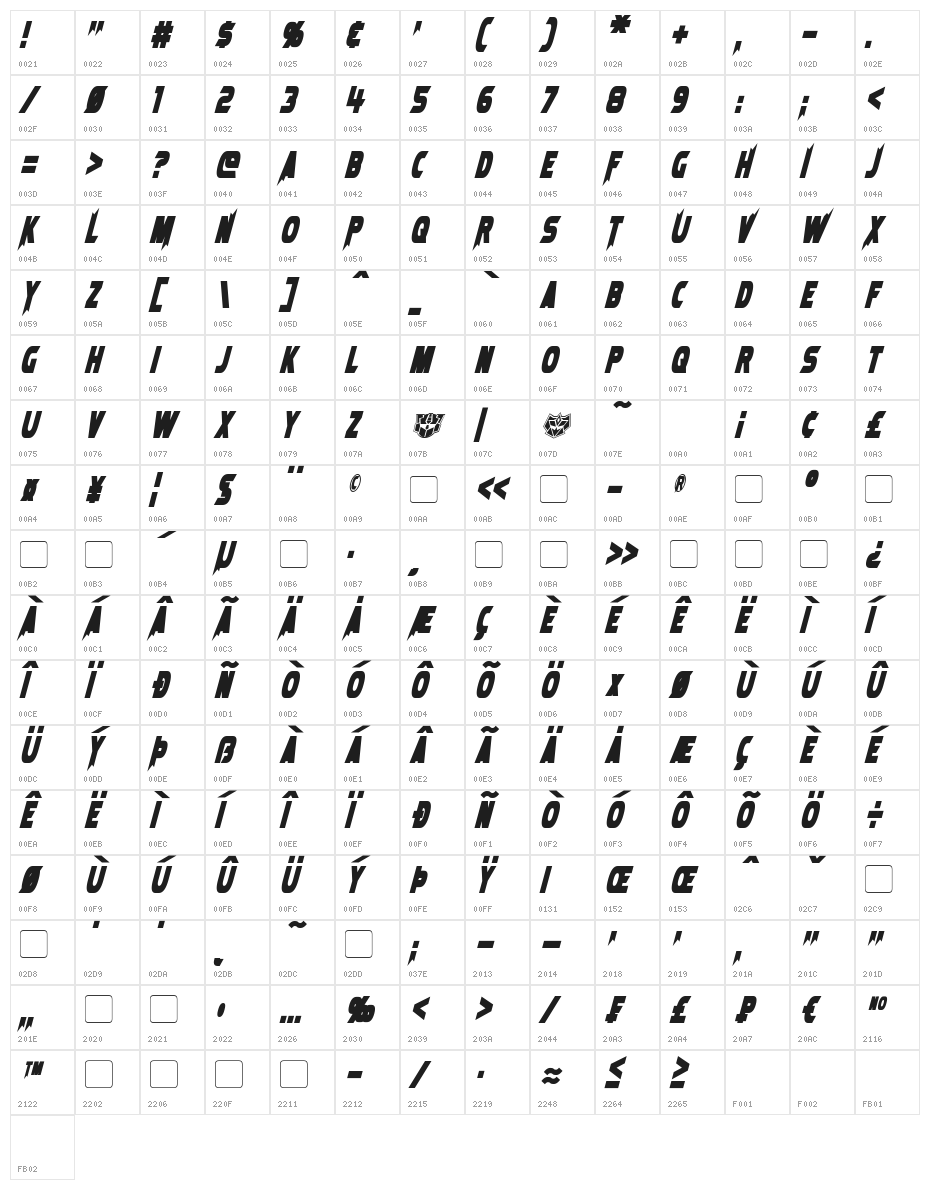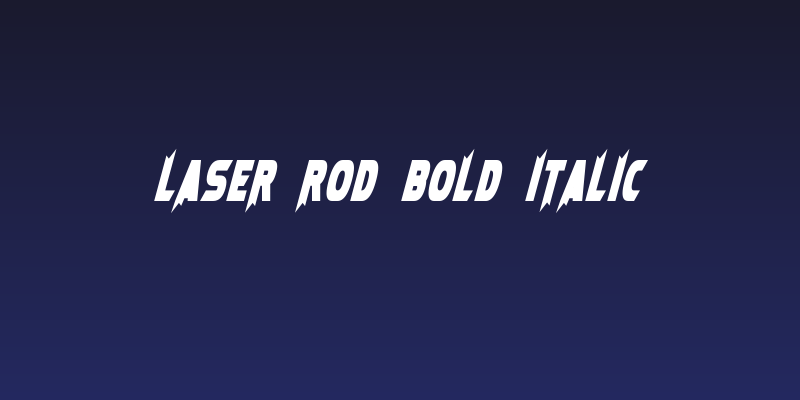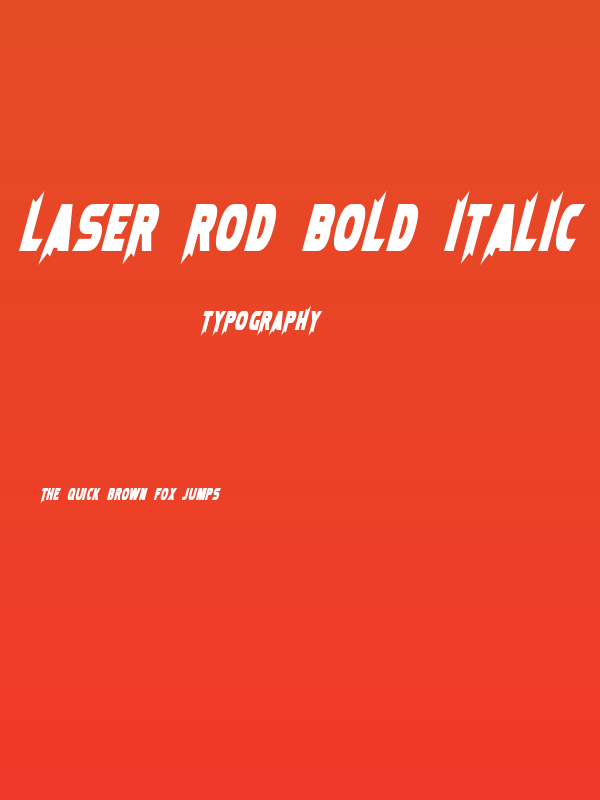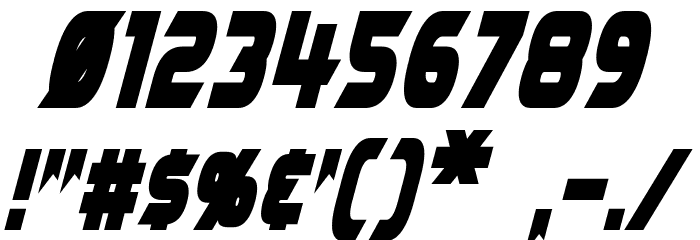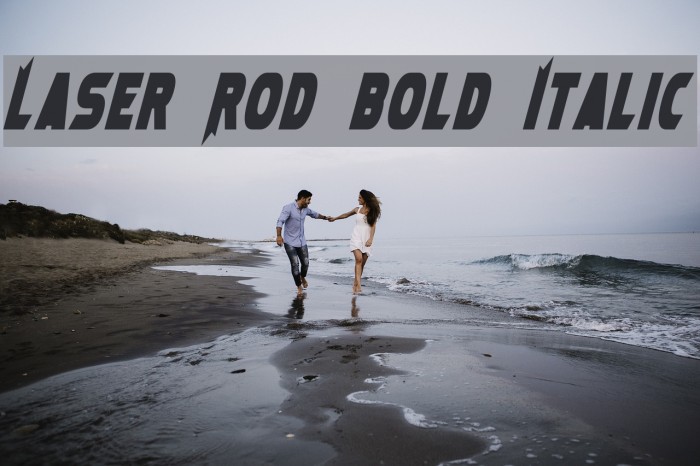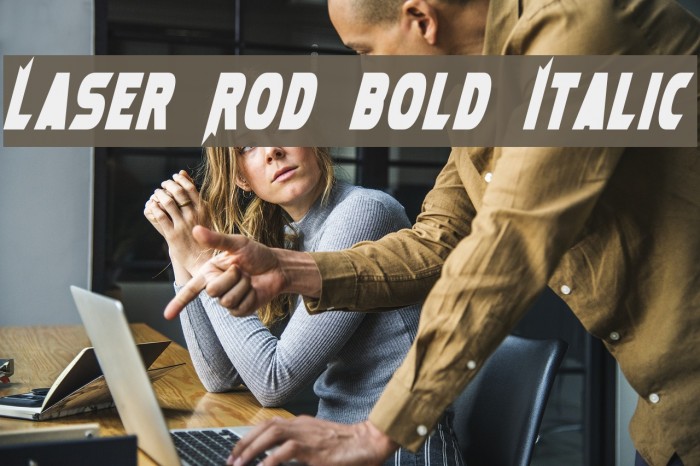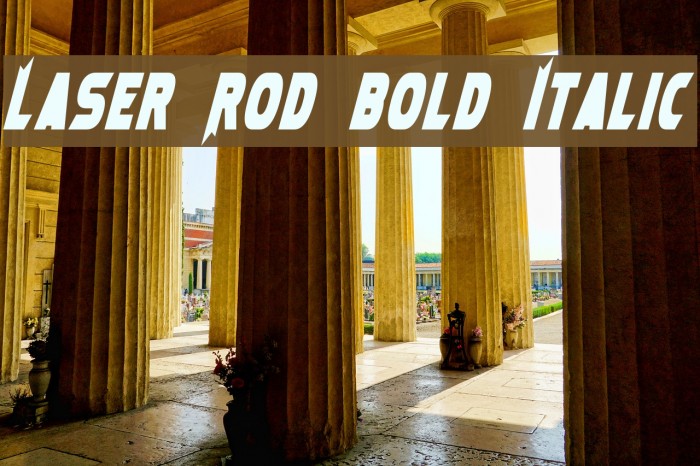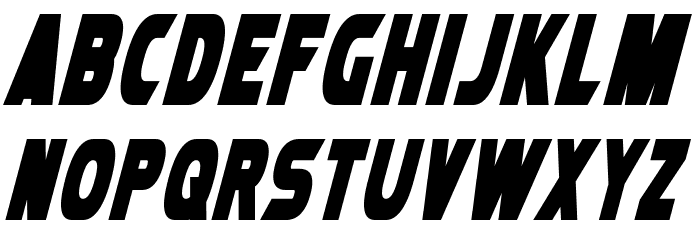
Laser Rod Bold Italic Font
This dynamic and bold typeface features a striking, angular design with sharp edges and a slanted, italicized posture. The characters are robust and impactful, making them ideal for attention-grabbing headlines. The font exhibits a futuristic and energetic style, with each letter having a unique, jagged appearance that suggests movement and speed. The numbers and special characters maintain the same bold and angular characteristics, ensuring consistency across all elements. The overall design is highly decorative, making it suitable for projects that require a strong visual impact.
| Overall Style | Futuristic, Energetic, Dynamic |
| Proposed Projects | Ideal for sports branding, video game titles, action movie posters, and dynamic advertising campaigns. |